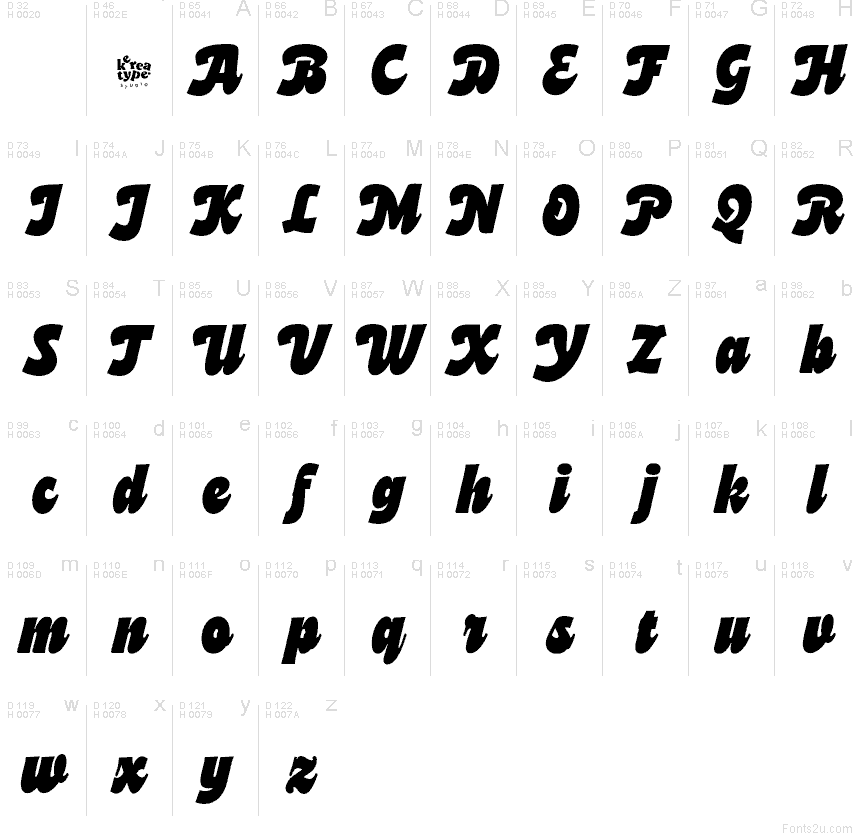
Quakers font by Kereatype Studio is a free retro script display typeface that feels like a bold sign painted straight onto a storefront window. Thick, inky strokes and tightly linked letters create a strong, rolling rhythm, while the playful heart-shaped inner curve of the Q gives it a signature, feel-good charm. The overall look is smooth yet chunky, with enough weight to hold its own on busy backgrounds and photos.
Using Quakers, you can instantly give logos, vintage-inspired packaging, posters, signage, social media graphics, and merch a warm, nostalgic pull. This free font shines when you set it large, letting those sweeping curves and dense silhouettes really breathe. Pair Quakers with a clean, geometric sans serif in smaller text to keep your layouts balanced and easy to read.